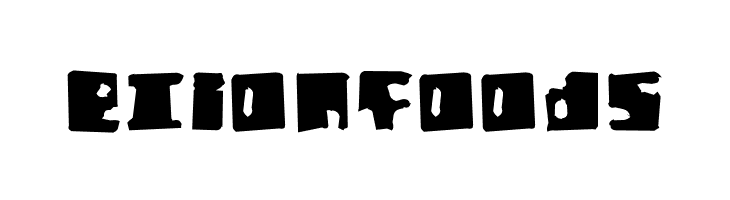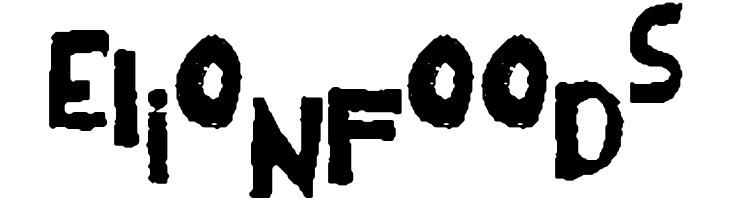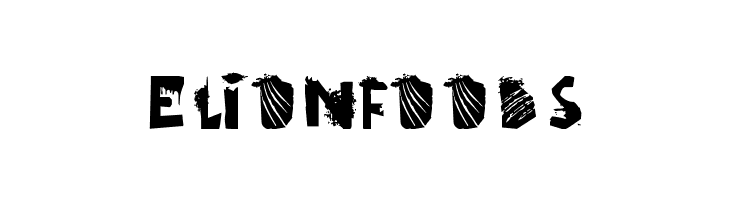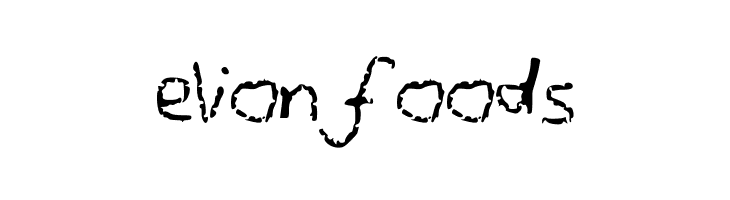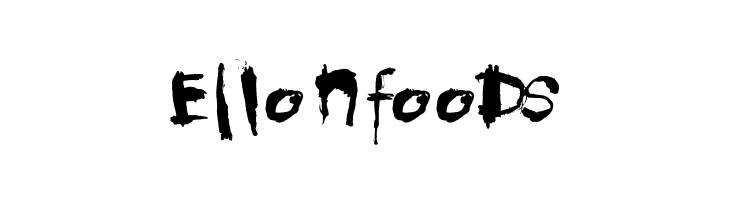
A bold, distressed font with an eroded, industrial look.
A bold, jagged, and distressed font with a grunge aesthetic.
A playful, hand-drawn font with irregular and dynamic letterforms.
A rugged, distressed font with a vintage, industrial feel.
A bold, brush-stroke style font with a dynamic, artistic energy.
A rugged, distressed font with a wild, untamed aesthetic.
A whimsical and artistic font with irregular, hand-drawn letterforms.
A playful, crayon-like font with a hand-drawn, textured appearance.
A bold, expressive font with brush-like strokes and irregular forms.
A whimsical and decorative font with playful, hand-drawn letterforms.